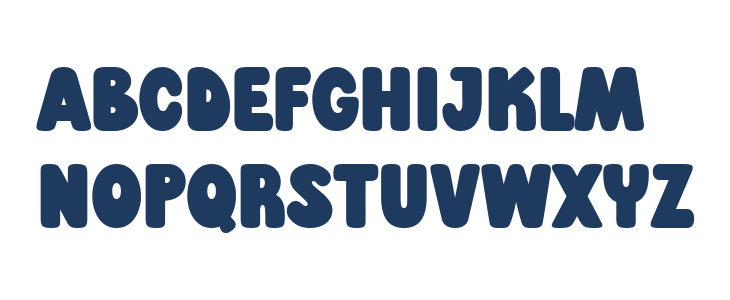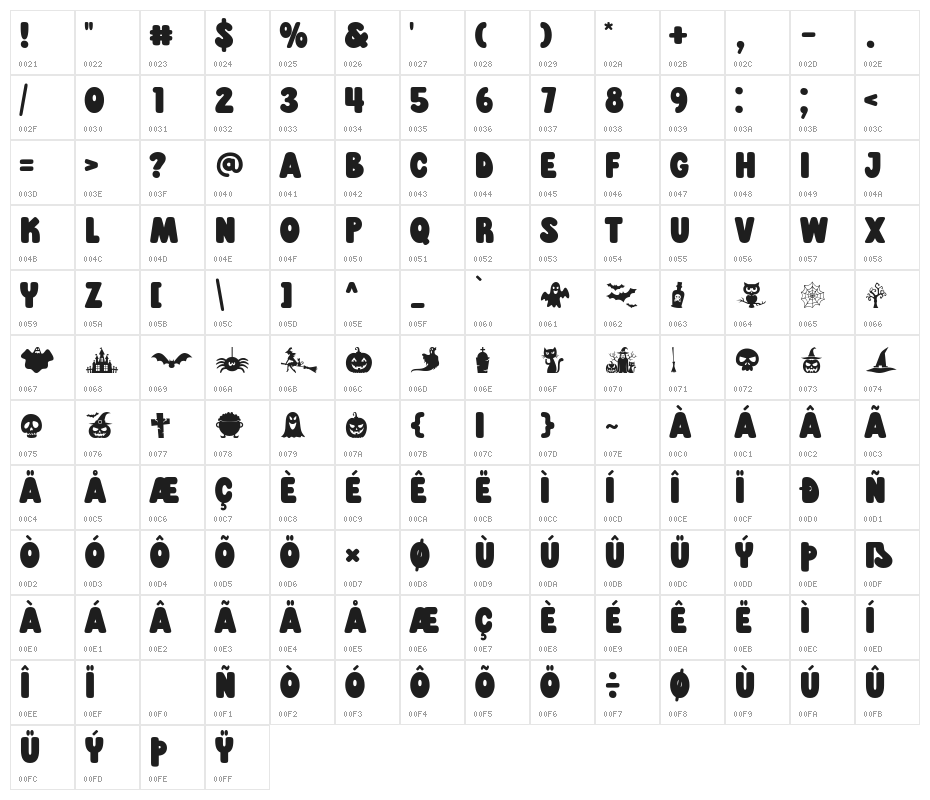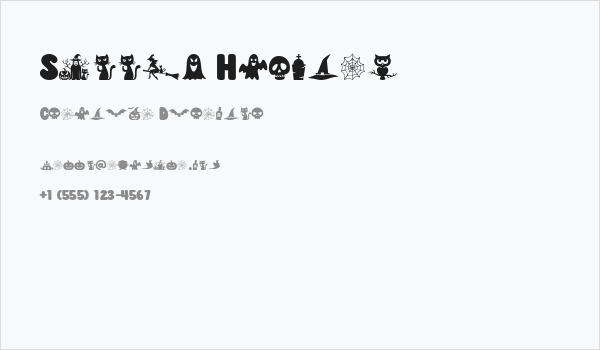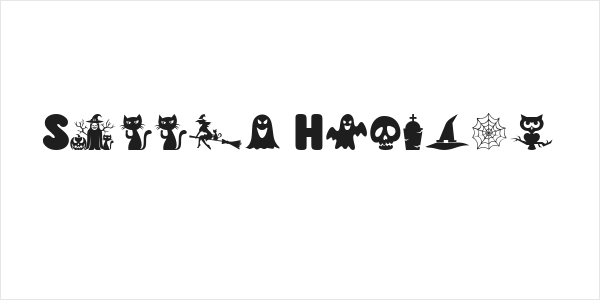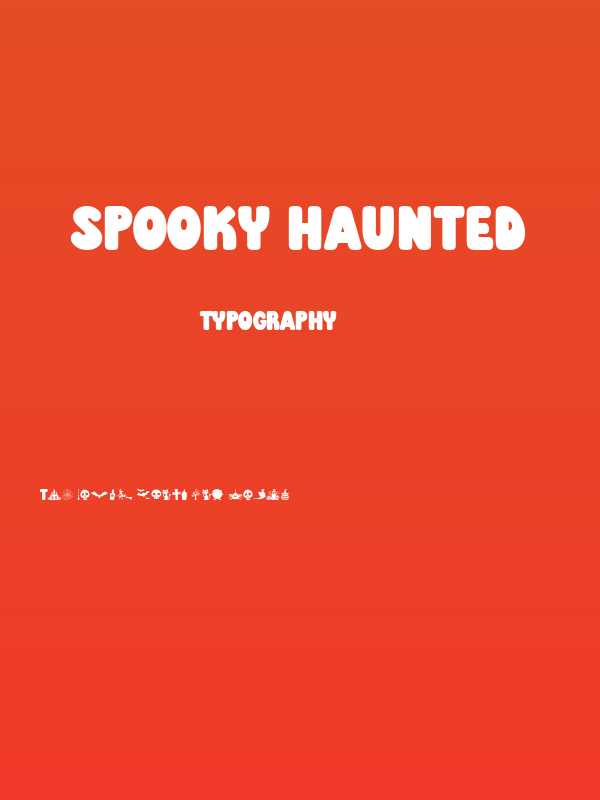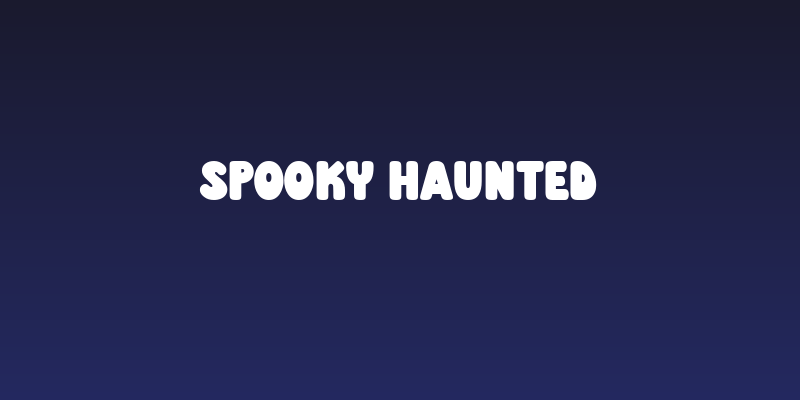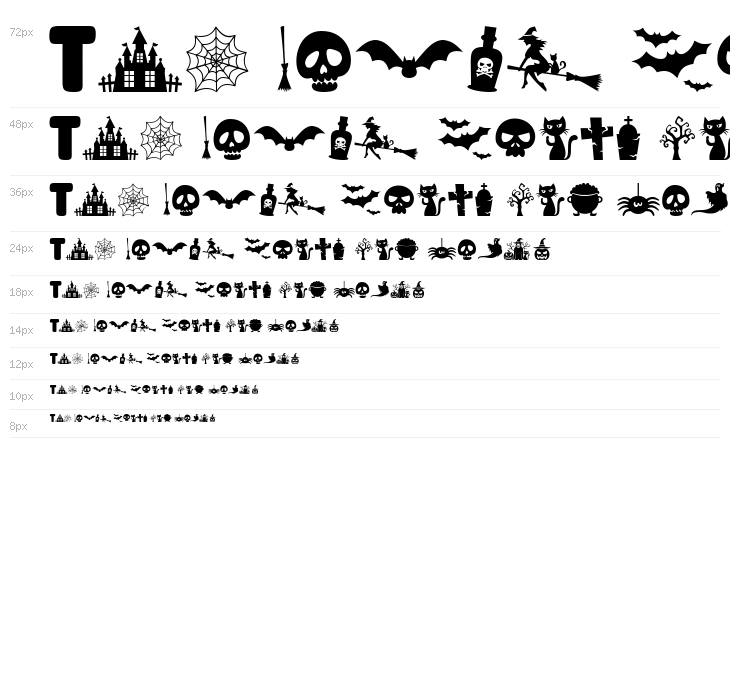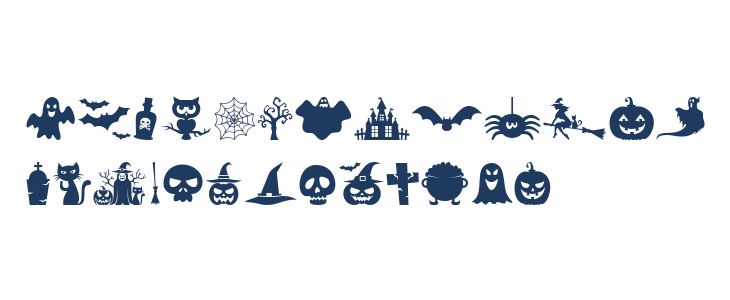
Spooky Haunted Font
| Overall Style | Decorative, Playful, Thematic |
| Use Case | Headlines, Posters, Themed Graphics, Invitations |
| Proposed Projects | Halloween party invitations, event posters, themed social media graphics, children's party materials, spooky branding. |